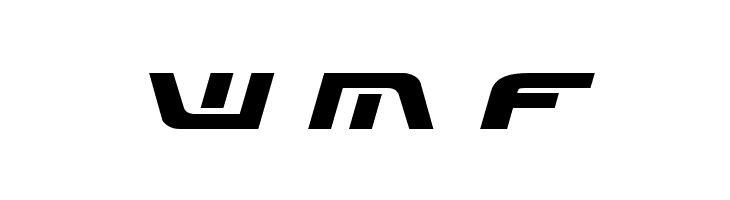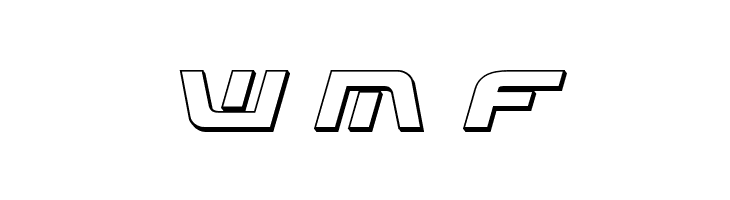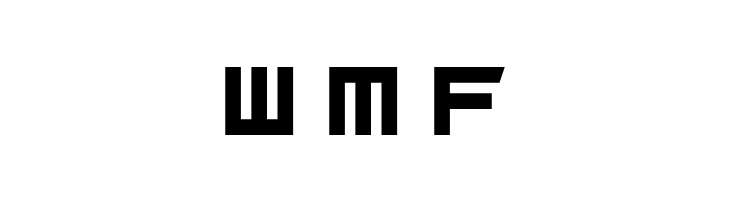
A bold, angular font with a strong, battle-ready aesthetic.
A bold, futuristic font with geometric shapes and sharp angles.
A futuristic, geometric font with angular lines and a monospaced design.
A bold, futuristic font with geometric shapes and sharp angles.
A bold, futuristic font with a 3D outlined design.
A bold, futuristic font with a three-dimensional outline effect.
A bold, 3D italic font with a futuristic and dynamic style.
A bold, 3D italic font with a futuristic and tech-inspired design.
A bold, futuristic font with geometric, angular characters.
A bold, geometric, and condensed font with a futuristic style.
A bold, geometric, and futuristic font with a condensed style.
A bold, condensed italic font with a modern, dynamic style.
A bold, condensed, and italicized font with a modern, angular design.
A futuristic, bold font with geometric and angular design.
A bold, futuristic font with geometric and angular design elements.
A bold, expanded, and italicized font with a futuristic and dynamic style.
A bold, expanded, and italic font with a futuristic and dynamic style.